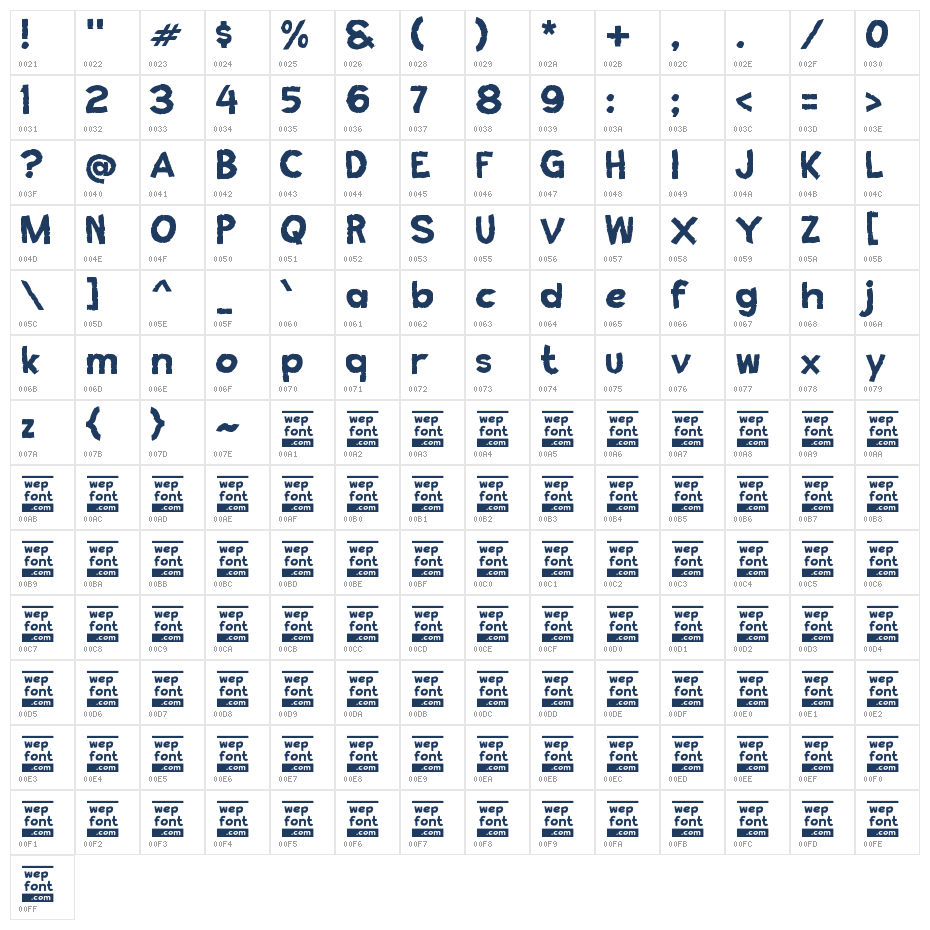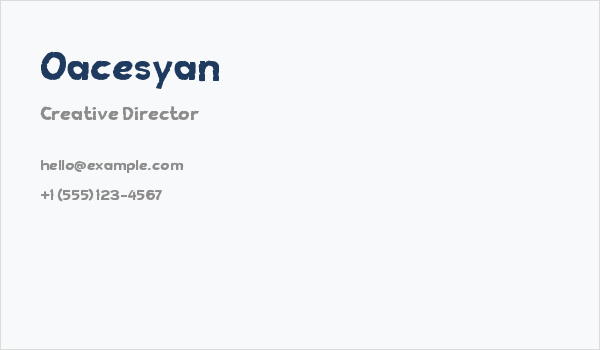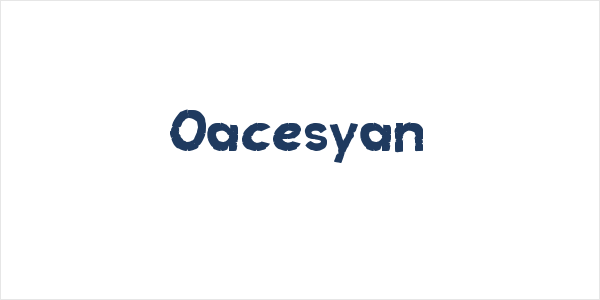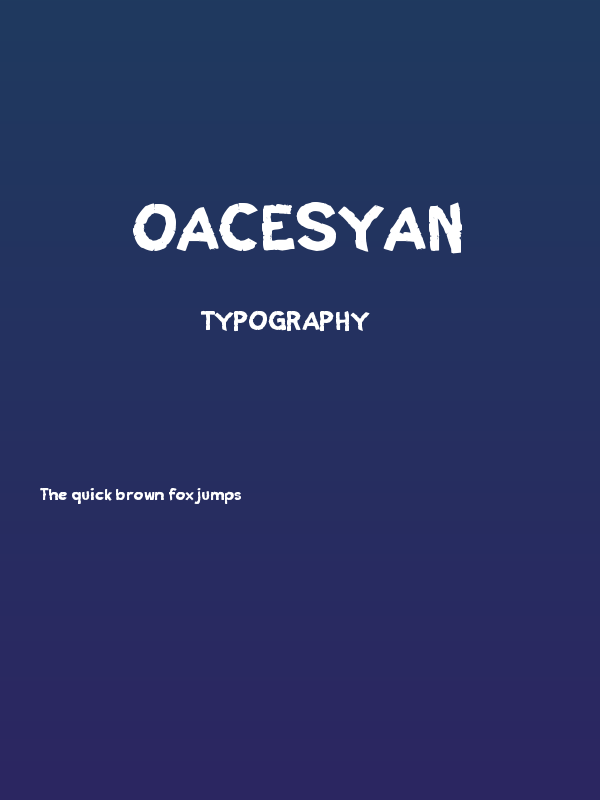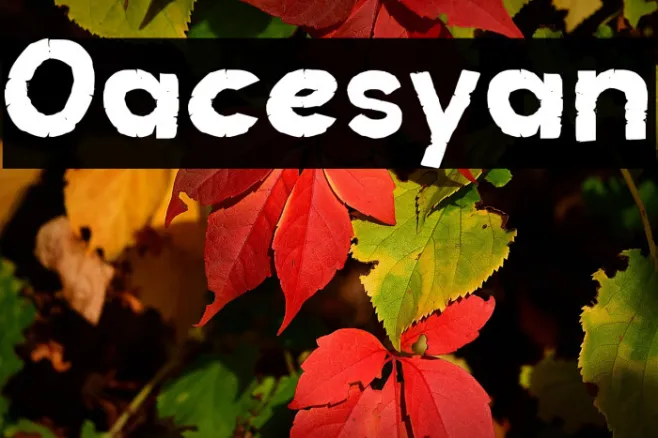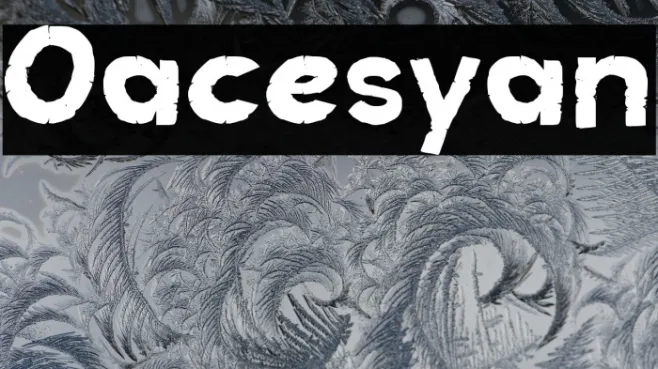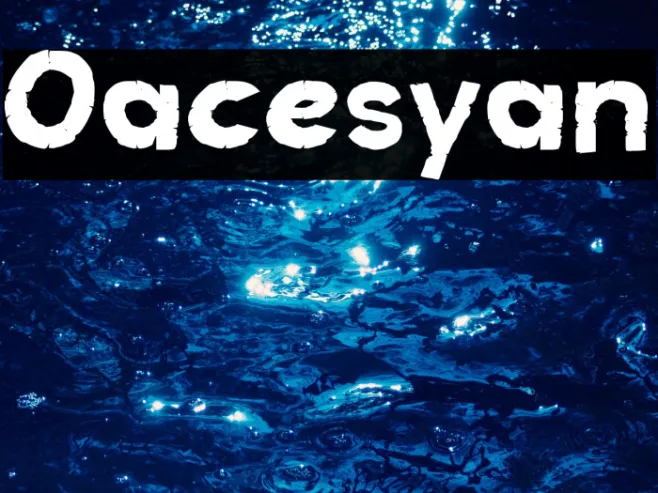
Oacesyan Font
Oacesyan Description
A bold, playful, and textured display font with a hand-drawn, casual style.
| Overall Style | Casual, Hand-drawn, Playful |
| Use Case | Headlines, Posters, Logos, Creative branding |